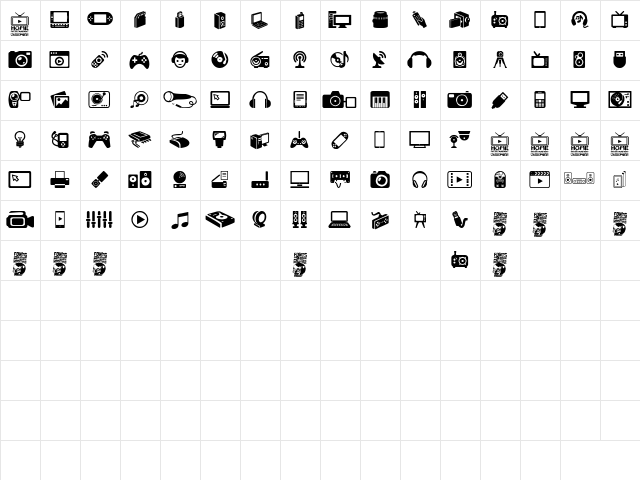
Home Entertainment Regular
| Designer | Woodcutter Manero |
Design Context for Home Entertainment Typeface
Home Entertainment is a composed and adaptable typeface that performs quietly and consistently across a wide range of design contexts.